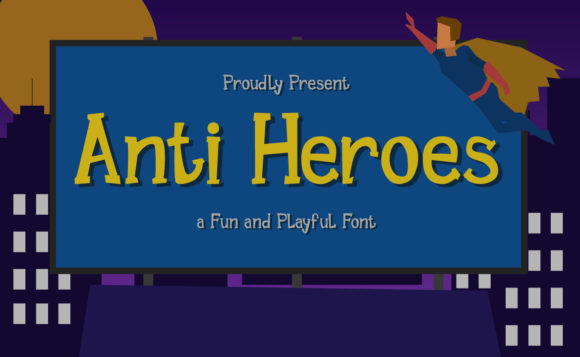
The Ultimate Anti Heroes Font Guide: Adding a Touch of Joy to Your Designs
I’ll never forget the time I was working on a children’s book project, and my client asked me to create a title page that would make kids’ eyes sparkle. I spent hours scouring font libraries, but nothing seemed quite right – until I stumbled upon Anti Heroes Font. This fun and playful display font instantly brought a smile to my face, and I knew it was the perfect fit. In this article, I’ll share my love for Anti Heroes Font, its features, and how to make the most of it in your designs.
An Honest Review of Anti Heroes Font
So, what makes Anti Heroes Font so special? Here are the things I love:
- ✨ Unique and playful design: Anti Heroes Font has a distinctive, hand-drawn feel that’s perfect for cartoon-related designs, children’s games, and more.
- ✅ Highly versatile: This font can be used for titles, brand names, book covers, posters, and any project that requires a touch of joy.
- 💡 Easy to read: Despite its playful nature, Anti Heroes Font is surprisingly legible, even at smaller sizes.
Of course, no font is perfect, and Anti Heroes Font has a few small quirks:
- 🤔 Limited use for body text: Due to its display nature, Anti Heroes Font might not be the best choice for longer blocks of text.
- ⚠️ Some letters may require manual kerning: As with any font, you might need to adjust the spacing between certain letters for optimal results.
The Backstory Behind Anti Heroes Font
Anti Heroes Font was designed with one goal in mind: to bring a touch of joy and playfulness to your designs. The font’s creator drew inspiration from classic cartoons, children’s books, and the world of fantasy. The result is a font that’s both fun and functional.
| Font Name | Anti Heroes Font |
| Author | niankeun |
| What type of projects is Anti Heroes Font best suited for? | Anti Heroes Font is perfect for cartoon-related designs, children’s games, quotes, titles, brand names, book covers, posters, and any project that requires a touch of joy. |
| Is Anti Heroes Font easy to read? | Yes, despite its playful nature, Anti Heroes Font is surprisingly legible, even at smaller sizes. |